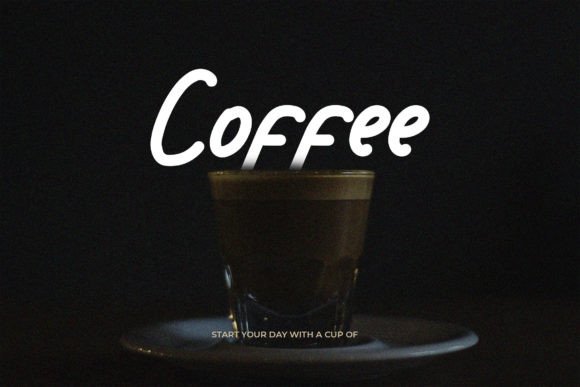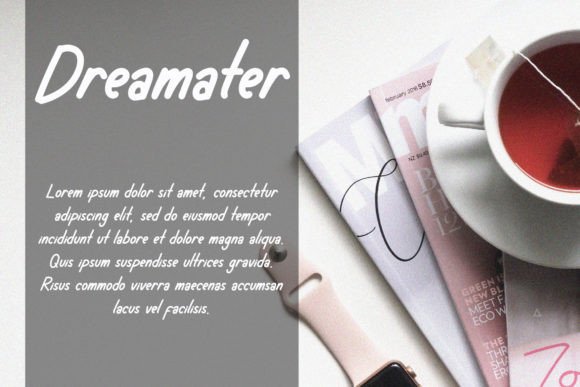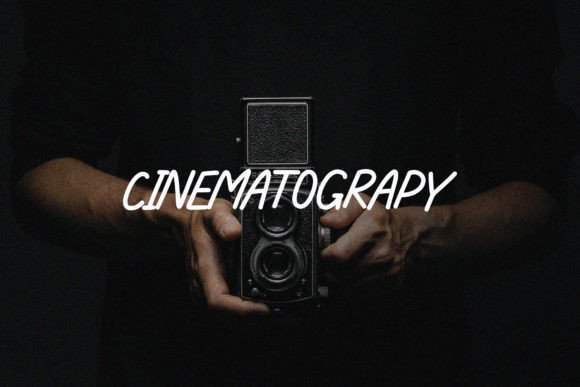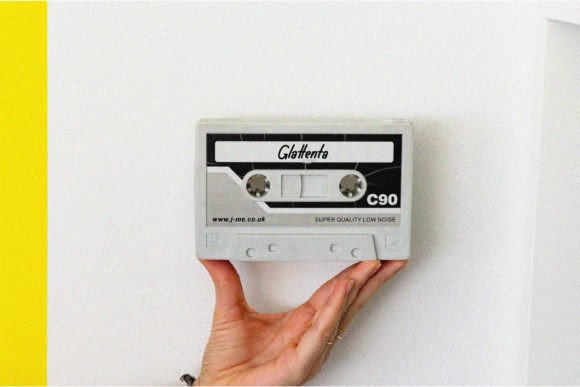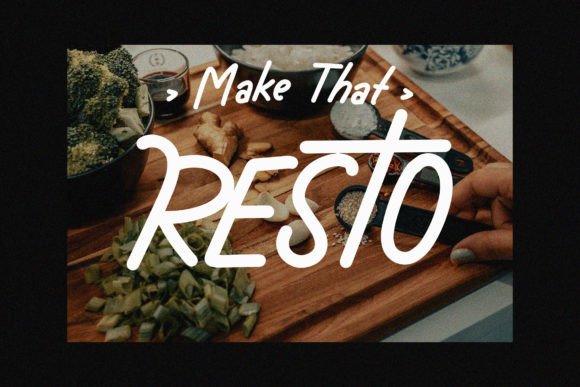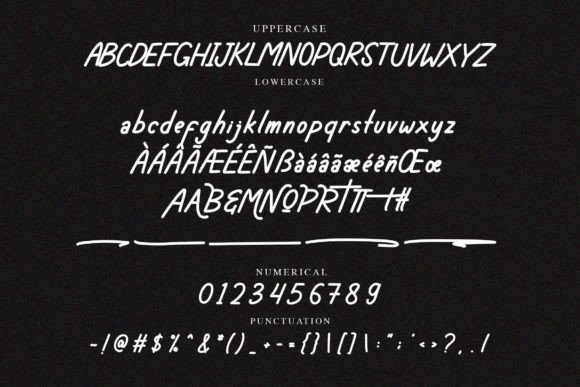
Introduction to Glattenta Font
Have you ever stumbled upon a design that left you speechless, its simplicity and elegance captivating your senses? For designers, moments like these are what drive our creative journey. And, we’re excited to share with you a new addition to your design resource arsenal – the Glattenta Font. This high-quality, free download is more than just a font; it’s a tool to elevate your creative project and give it a unique identity.
The Glattenta Font is a masterpiece of minimalist design, boasting a transparent background that lets your message shine. With its distinct characters, this font carves its own identity, making it a valuable asset for any designer looking to add a touch of sophistication to their work. As we continue to refine and update the Glattenta Font, we’re grateful for your support and feedback that help shape its evolution.
Key Features of Glattenta Font
- Unique and stylish font with a transparent background, ideal for use in various design contexts.
- Features a clear and legible font design, suitable for body text and headings in various creative projects.
- Includes multiple font styles and weights, allowing for flexibility in design and customization.
- Perfect for use in graphic design, digital art, and other creative endeavors where a unique and stylish font is required.
Honest Review: Glattenta Font
The font itself is quite impressive, with a unique and modern design that’s perfect for any design resource. The Glattenta Font offers a high quality experience, with crisp and clear characters that make it perfect for digital and print use.
What works well: ✨ Transparency – the font comes with a transparent background, making it easy to use on any background image or color. ✨ Versatility – it’s suitable for a wide range of creative projects, from logos to infographics. ✨ Customization – the font is highly customizable, allowing you to adjust the size, color, and style to suit your needs.
However, I did notice a few limitations: ⚠️ Limited language support – the font only supports a few languages, which may be a problem for designers working on multilingual projects. ⚠️ Limited web font support – while the font can be used for digital projects, it may not be suitable for web-based projects that require font embedding.
Overall, I’m impressed with the Glattenta Font, and I would recommend it to any designer looking for a high-quality font for their next project.
- High quality font suitable for digital and print use
- Transparency and customization options available
- Perfect for logos, infographics, and other creative projects
Glattenta Font
The Glattenta Font is a free download that can be used as a design resource for various creative projects. It’s a high-quality font that features a transparent background, making it easy to customize and integrate into different designs.
Tips for Getting the Most Out of Glattenta Font
To get the most out of the Glattenta Font, try the following:
- Experiment with different font sizes and styles to create visually appealing designs.
- Combine the Glattenta Font with other design elements, such as images and graphics, to create unique and creative projects.
- Use the transparent background feature to create custom designs that fit your brand’s identity.
The Glattenta Font is commonly used in:
- Logo design and branding.
- Infographic creation.
- Business card and brochure design.